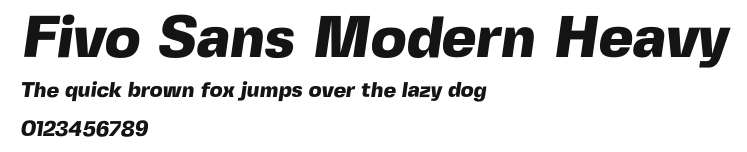
Fivo Sans Modern Heavy Preview
• Font Name: Fivo Sans Modern Heavy
• Full Font Name: FivoSansModern-HeavyOblique
• PostScript Name: FivoSansModern-HeavyOblique
• Designer: Alexander Slobzheninov
• Manufacturer: Alexander Slobzheninov
About Fivo Sans Modern Heavy.otf
Fivo Sans Modern Heavy.otf is a modern, elegant sans-serif font designed for ultimate readability and visual harmony. Perfect for branding, headlines, web design, and print materials.